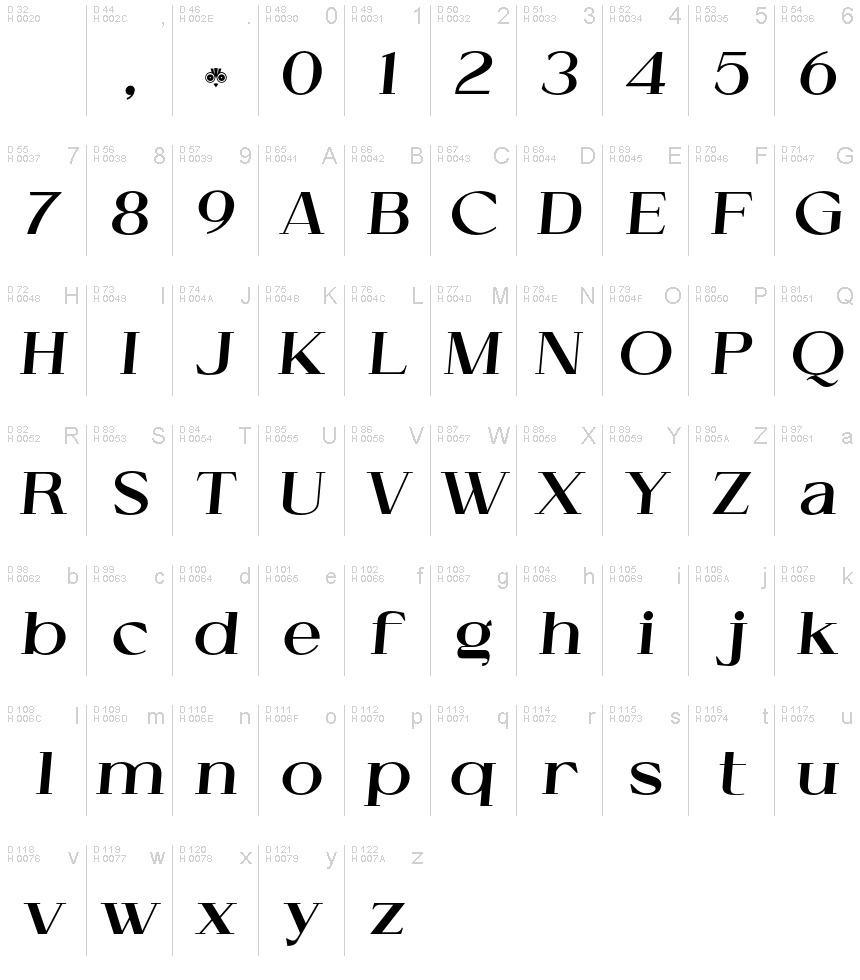
Cellofy Black SemExp Italic font, part of the Cellofy family by Owlking Project, is a striking serif creation. Featuring a dramatic and bold design, this free font captivates with its expanded italic style, offering a modern twist on classic elegance. Its pronounced curves and thick lines provide an eye-catching flair ideal for headlines or branding projects that demand attention.